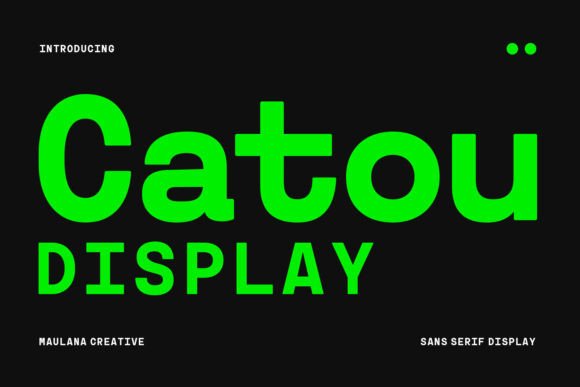
Introducing Catou Font: The Ultimate Display Font for Bold Designs
Are you tired of using the same old fonts for your designs? Look no further than Catou Font, a neat, bold, and assertive display font that’s perfect for making a statement. With its minimalist and clean vibe, Catou Font is versatile enough to be used for a wide range of design projects, from book covers and magazines to social media posts and invitations.
What is Catou Font?
Catou Font is a modern display font that’s designed to grab attention. Its bold and assertive style makes it perfect for designers who want to add a touch of sophistication to their work. The font’s clean lines and minimalist aesthetic ensure that it looks great in any design, whether you’re creating a simple social media post or a complex book cover.
Key Features of Catou Font
- Bold and Assertive: Catou Font is designed to make a statement. Its bold style ensures that your text stands out, making it perfect for headlines, titles, and other attention-grabbing elements.
- Minimalist and Clean: The font’s clean lines and minimalist aesthetic make it versatile enough to be used for a wide range of design projects.
- Highly Versatile: Catou Font can be used for everything from book covers and magazines to social media posts and invitations.
- Easily Readable: Despite its bold style, Catou Font is easy to read, making it perfect for designs that require a clear and concise message.
Uses for Catou Font
Catou Font is perfect for designers and crafters who want to add a touch of sophistication to their work. Here are some ideas for using Catou Font:
- Book Covers: Use Catou Font to create eye-catching book covers that grab the attention of potential readers.
- Magazines: Add a touch of elegance to your magazine designs with Catou Font.
- Social Media Posts: Use Catou Font to create bold and attention-grabbing social media posts that stand out in crowded feeds.
- Invitations: Add a touch of sophistication to your invitations with Catou Font.
- Branding: Use Catou Font to create bold and memorable brand identities.
Tips for Using Catou Font
Here are some tips for getting the most out of Catou Font:
- Use it for Headlines: Catou Font is perfect for headlines and titles. Use it to grab attention and draw the reader in.
- Experiment with Colors: Catou Font looks great in a range of colors. Experiment with different colors to find the one that works best for your design.
- Pair it with Other Fonts: Catou Font pairs well with a range of other fonts. Experiment with different pairings to find the one that works best for your design.
Catou Font is a versatile and stylish display font that’s perfect for designers and crafters who want to add a touch of sophistication to their work. With its bold and assertive style, clean lines, and minimalist aesthetic, Catou Font is sure to become a go-to font for a wide range of design projects. Whether you’re creating book covers, magazines, social media posts, or invitations, Catou Font is the perfect choice.